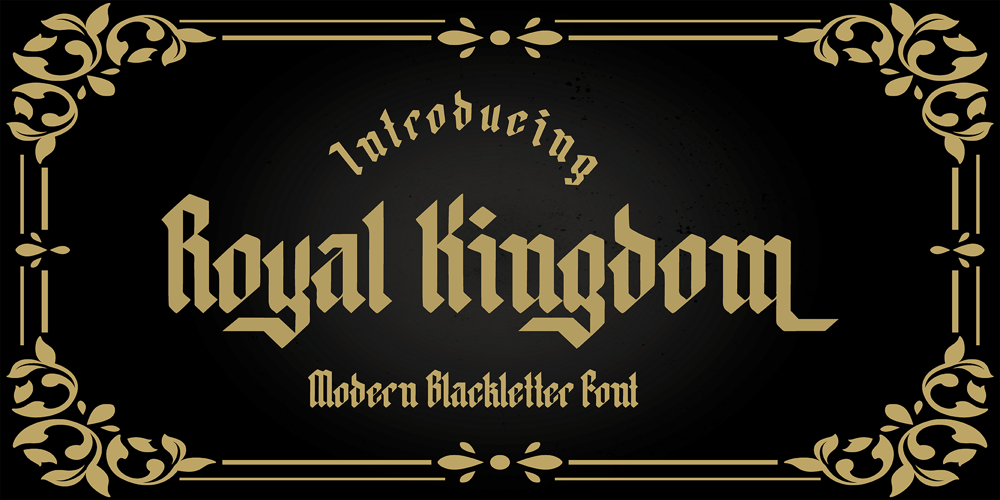
Royal Kingdom Font Family was designed by Abul Almaududi and published by Pixesia Studio. Royal Kingdom contains 1 styles and family package options. Introducing Royal Kingdom – Modern Blackletter FontRoyal Kingdom is a modern blackletter font that elegantly blends contemporary design elements with the essence of Old English Gothic scriptures.Royal Kingdom is perfectly suited for branding projects, logos, social media posts, advertisements, product packaging, labels, photography, watermarks, stationery, and any creative project seeking a touch of modern blackletter elegance.FEATURES:- Stylistic Alternates- Ligatures- PUA Encoded- Uppercase and Lowercase letters- Numbering and Punctuations- Multilingual Support- Works on PC or Mac- Simple Installation- Support Adobe Illustrator, Adobe Photoshop, Adobe InDesign, also works on Microsoft WordHope you Like it.Thanks.